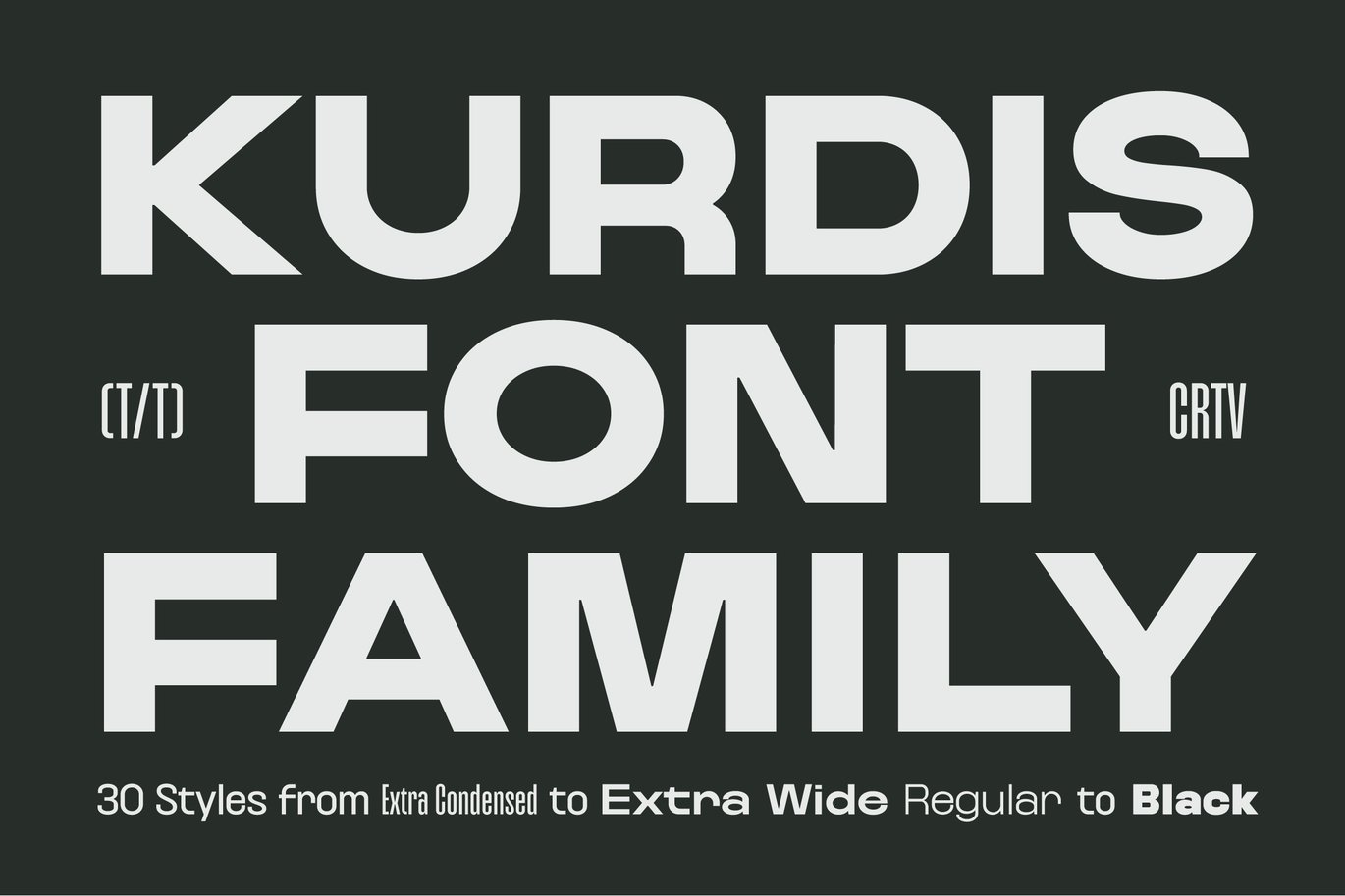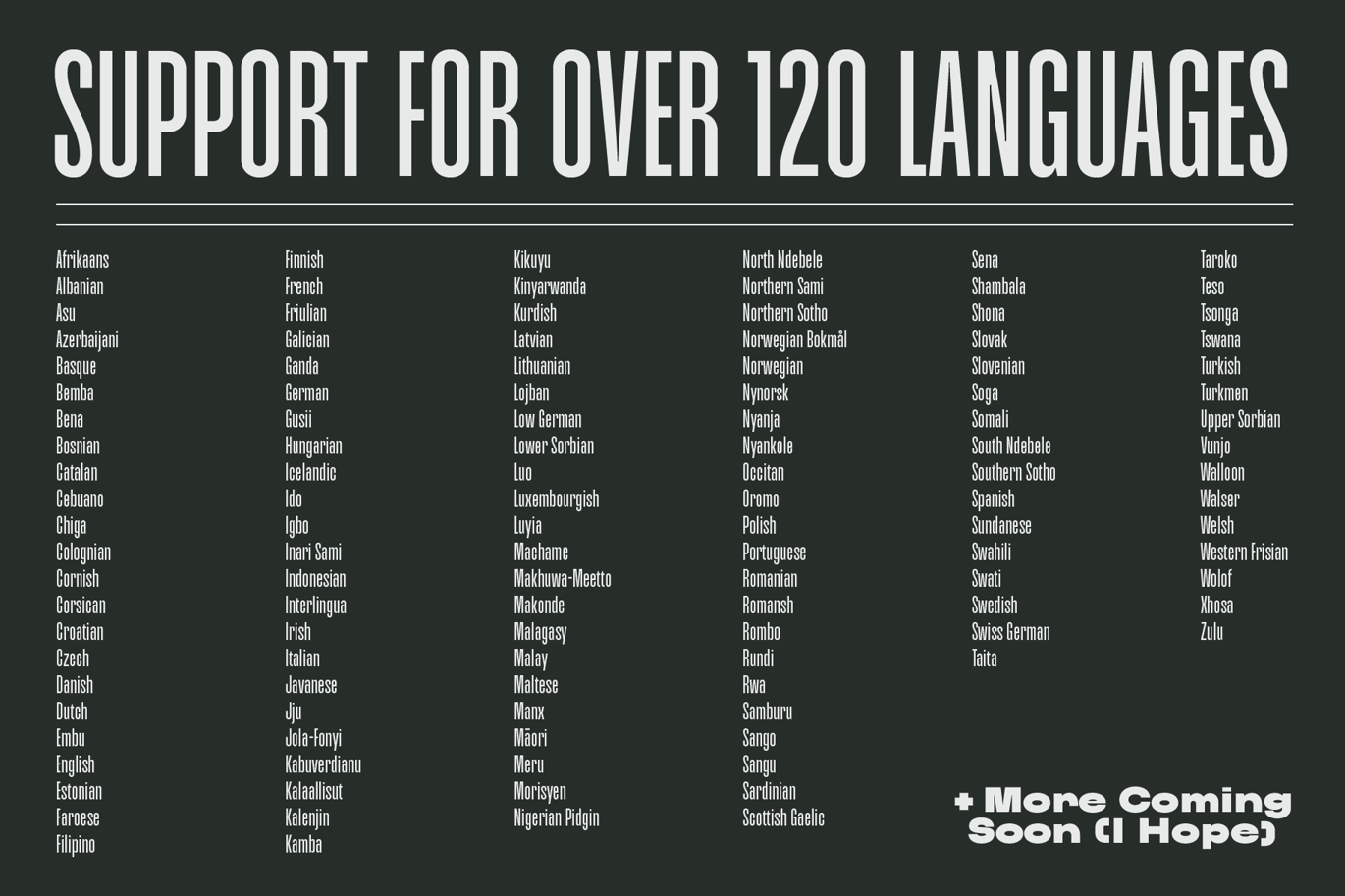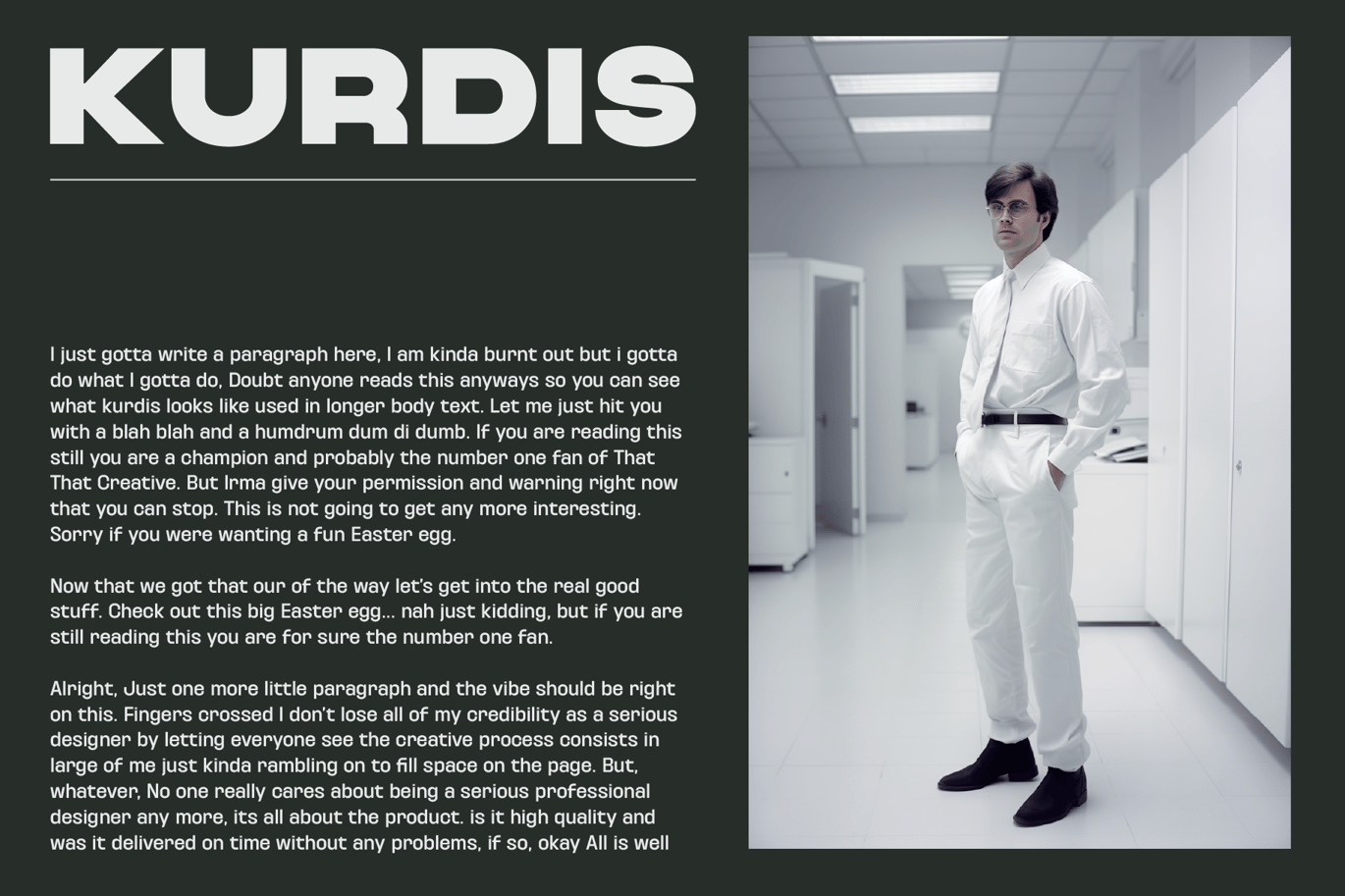
Kurdis Geometric Sans Family (30 Styles) Font
Kurdis Geometric Sans Family (30 Styles) Font is a versatile typeface ideal for various projects, including Sans-Serif, logos, branding, posters, blog headers, advertisements. The free version includes a full set of uppercase and lowercase letters, available in OTF, TTF, WOFF, WOFF2 format.
Kurdis Geometric Sans Family (30 Styles) Font
Kurdis Geometric Sans Family (30 Styles) Font Preview
Kurdis Geometric Sans Family (30 Styles) Font Sample
Kurdis Geometric Sans Family (30 Styles) Font Character Map